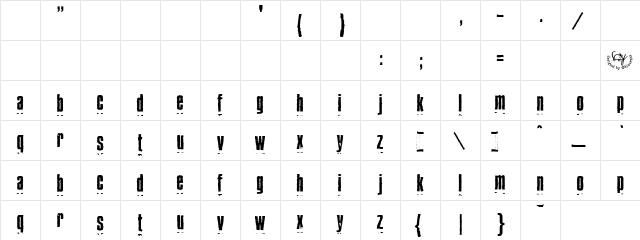
Indiacom Regular
Design Context for Indiacom Typeface
Indiacom is a composed and adaptable typeface that performs quietly and consistently across a wide range of design contexts.